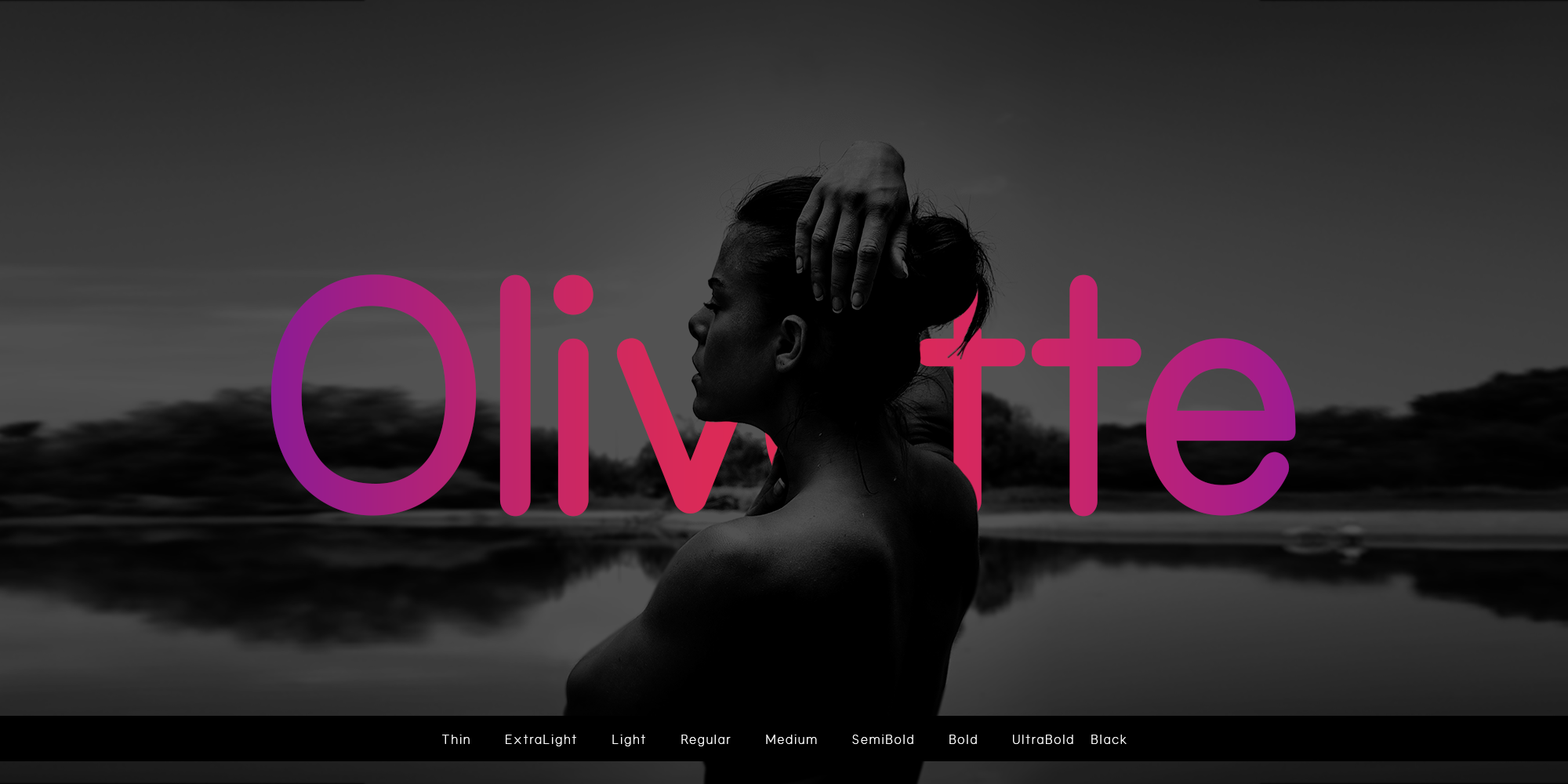
If you're looking for a modern, minimalist sans-serif typeface with a sleek and professional appeal, Olivette Sans Font Free Download is the perfect choice for your creative projects. This clean, versatile font features smooth, balanced letterforms with geometric precision, making it ideal for branding, logos, website headers, packaging, editorial layouts, and marketing materials that require a contemporary, polished look.
Olivette Sans Font offers excellent readability across both print and digital platforms, making it suitable for headlines, body text, and everything in between. It includes multilingual support and a range of glyphs, providing designers with flexibility to create cohesive, high-quality typography. Whether you're developing a corporate identity or crafting stylish promotional materials, this font delivers clarity, simplicity, and sophistication.